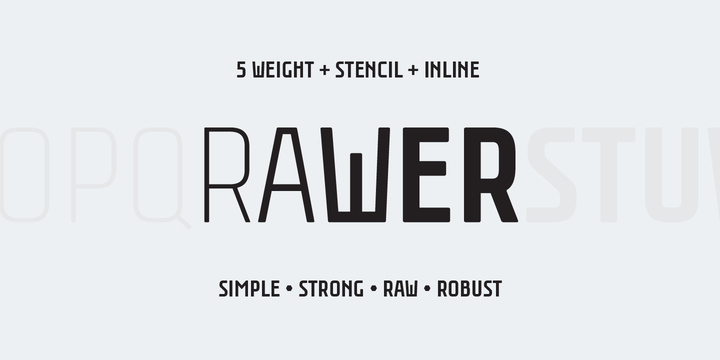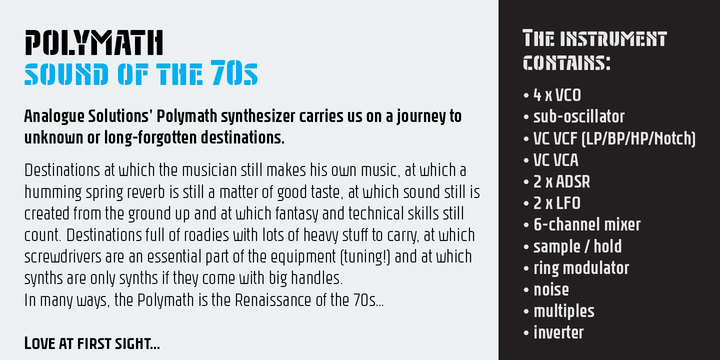
Rawer Font Family
Another boring sans?! No way! Rawer – simple, strong, raw, robust sans with stencil and inline weights. And again it’s inspired by soviet typography.